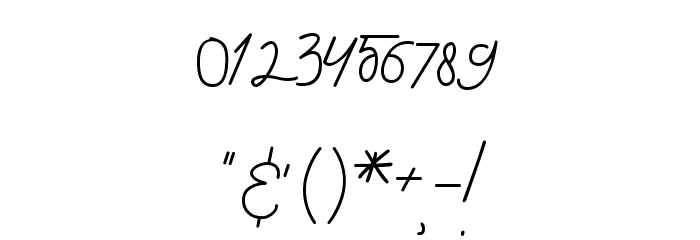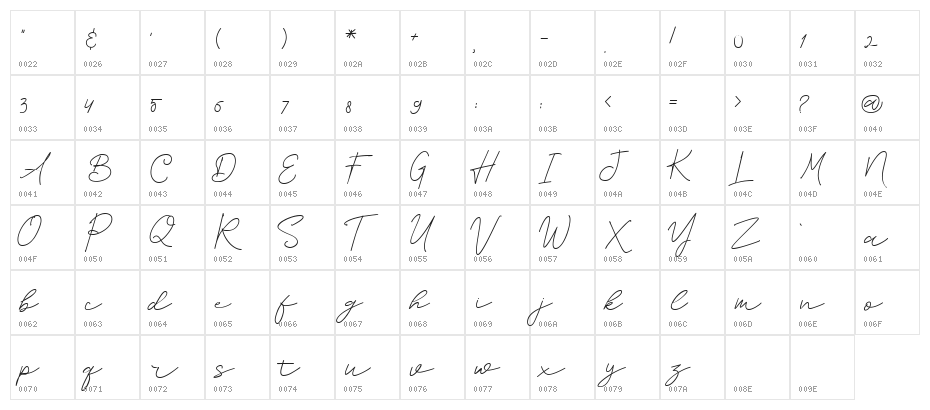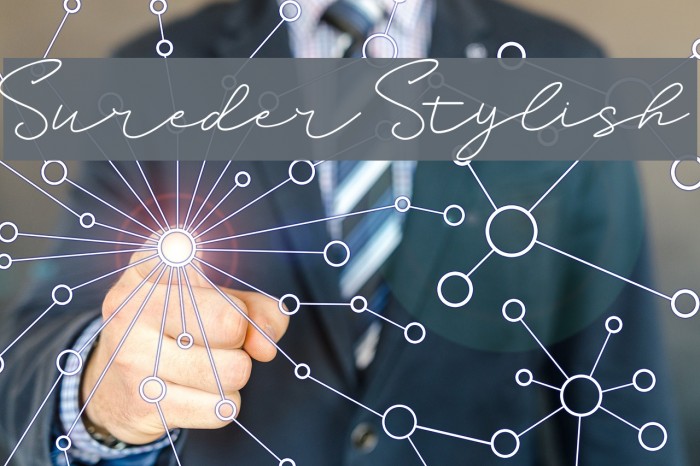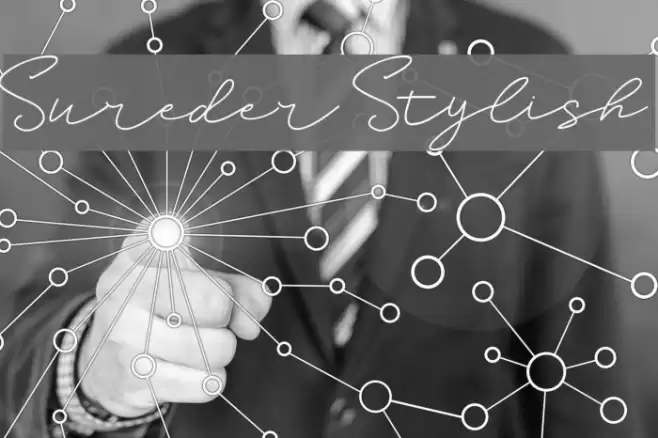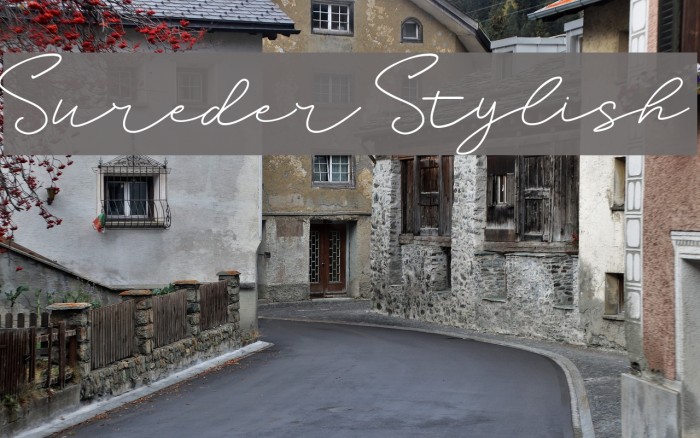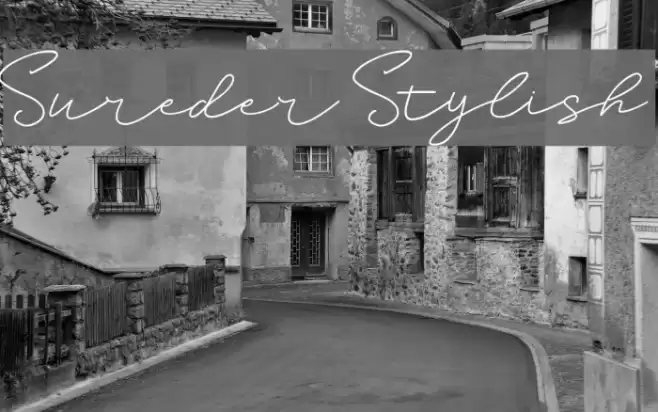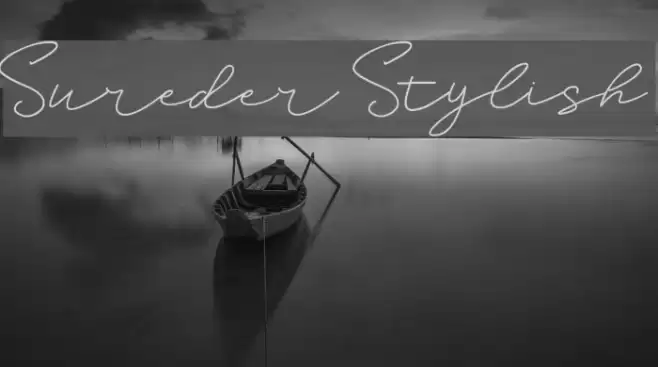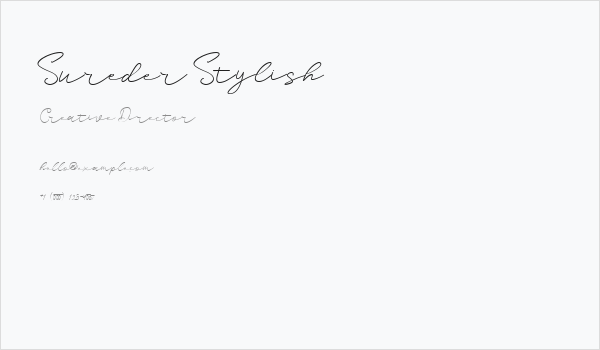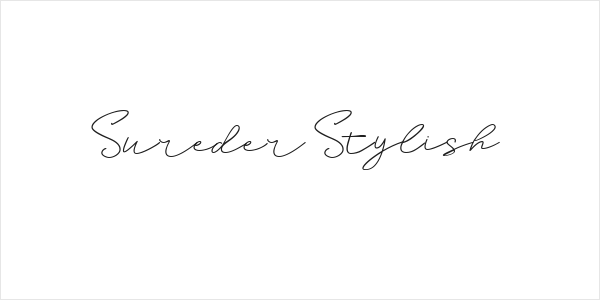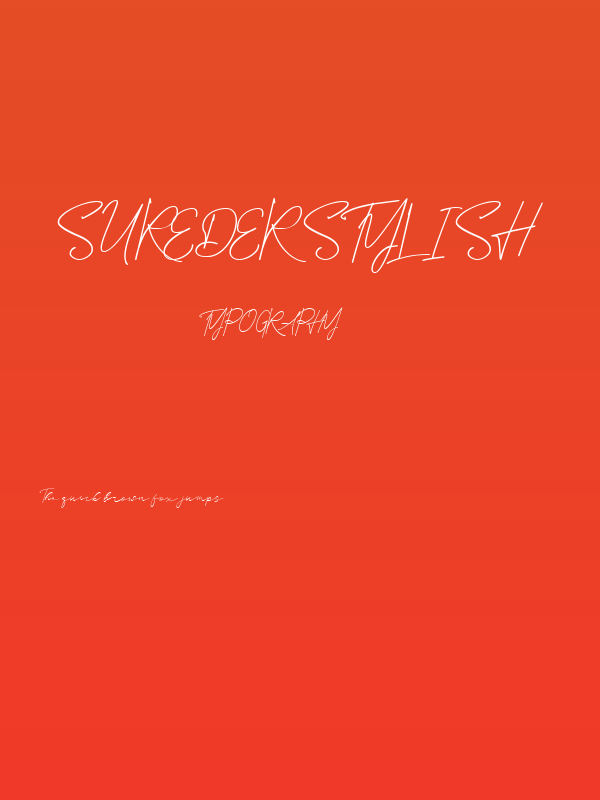
Sureder Stylish Font
Sureder Stylish Description
This font features a stylish, cursive script with elegant, flowing lines that give it a sophisticated and artistic appearance. The uppercase letters are tall and slender, with a slight slant that adds a dynamic feel. Lowercase letters are more rounded and connected, enhancing the script's fluidity. The numerals are consistent with the overall style, maintaining the same graceful curves. Special characters are designed to complement the script, with smooth, continuous strokes. This font exudes a sense of creativity and elegance, making it suitable for projects that require a personal touch.
| Overall Style | Elegant, Artistic |
| Proposed Projects | Ideal for wedding invitations, greeting cards, personal branding, and artistic projects. |